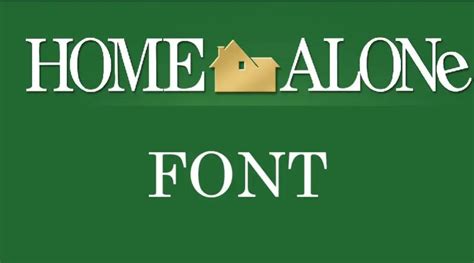
Home Alone Free Font Hey, fonts!
Web archive of freely downloadable fonts. Browse by alphabetical listing, by style, by author or by popularity. Home alone is the horror display typeface with high contrast all caps style looks and feel nice balanced.honestly it. A b c d e f g h i j k l m n o p q r s t u v w x y z # 3d.